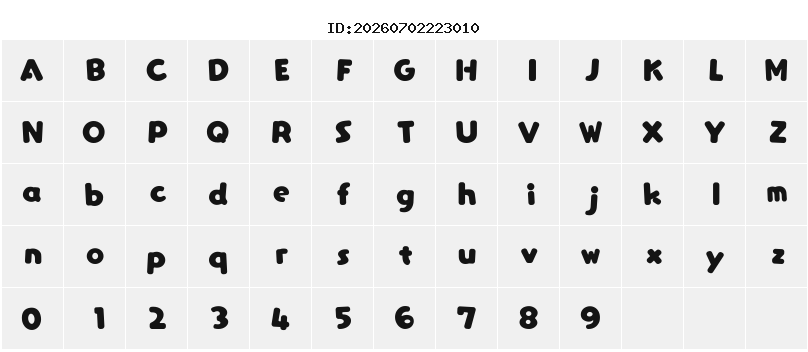
024-上首软糖体 Preview
About 024-上首软糖体.ttf
024-上首软糖体.ttf is a modern, elegant sans-serif font designed for ultimate readability and visual harmony. Perfect for branding, headlines, web design, and print materials.